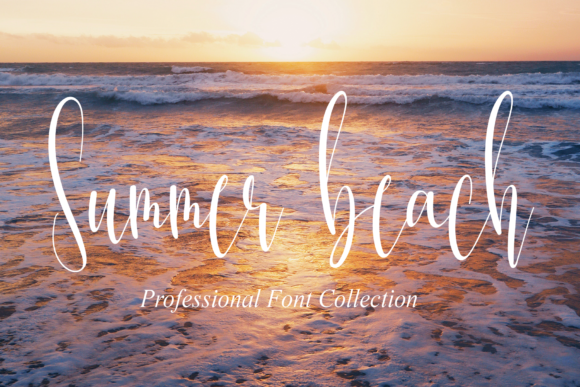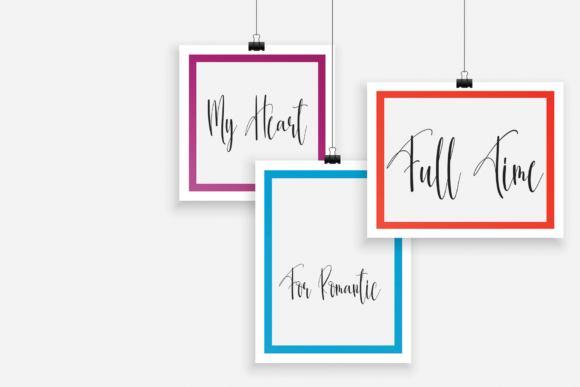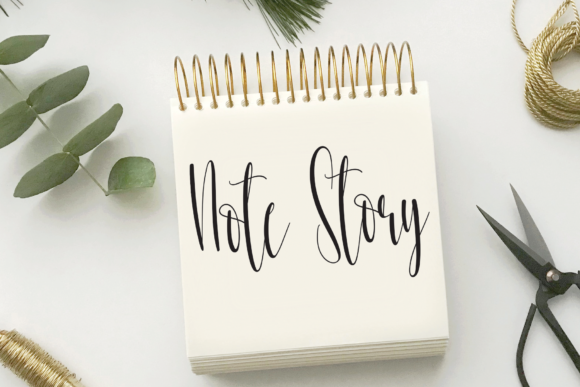
Introduction to Hellonita Font
As a designer, there’s nothing quite like the thrill of discovering a new font that sparks creativity and sets your imagination ablaze. For me, that moment came when I stumbled upon the Hellonita Font – a stunning script font that exudes elegance and sophistication. Its thin lettering and flowing lines seem to dance across the page, inviting me to unleash my artistic side and bring my vision to life.
With its ravishing style, Hellonita Font is the perfect addition to any design project. Whether you’re crafting a beautiful wedding invitation, designing stunning stationery, or creating eye-catching social media posts, this versatile font is sure to elevate your work to the next level. And the best part? It’s a high-quality, free download that’s available for designers to use as a valuable design resource.
Key Features of Hellonita Font
- High-quality design with a unique, modern aesthetic, perfect for creative projects.
- Unique characteristics include a bold, eye-catching style with a mix of geometric and organic elements.
- Perfect for use in logos, branding materials, and other design elements that require a high level of visual impact.
Honest Review: Hellonita Font
I recently stumbled upon the Hellonita Font, and I must say it’s been a game-changer for my design projects. This high-quality font is perfect for anyone looking to add a touch of elegance to their creative project.
- What works well: ✨ The Hellonita Font has a beautiful, cursive design that’s perfect for titles and headings. The transparent background makes it easy to layer over other design elements.
- What works well: ✨ The font is also incredibly versatile, making it suitable for a wide range of design styles and themes.
Overall, I’m really impressed with the Hellonita Font. It’s a great design resource for anyone looking to add a touch of sophistication to their creative project. While it may have a few limitations, the benefits far outweigh the drawbacks. I highly recommend it for anyone looking for a high-quality, free font download.
Common Use Cases for Hellonita Font
Hellonita Font is ideal for a variety of design projects, including logos, business cards, and social media graphics. Its unique style and high quality make it an excellent choice for designers seeking a distinctive design resource.